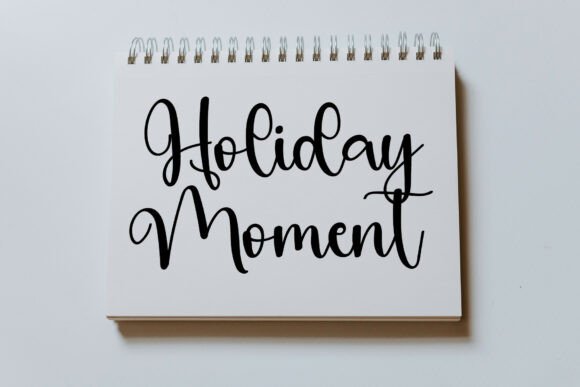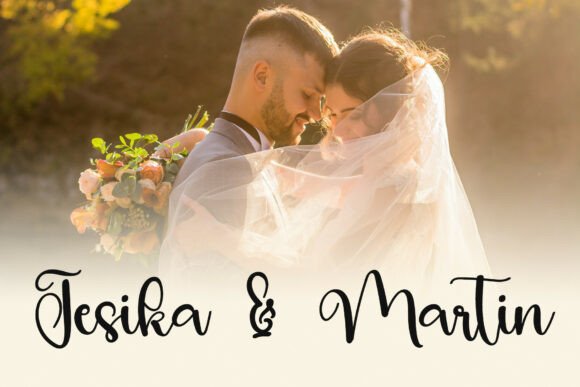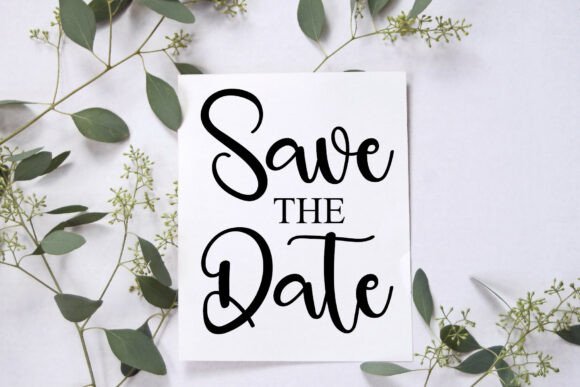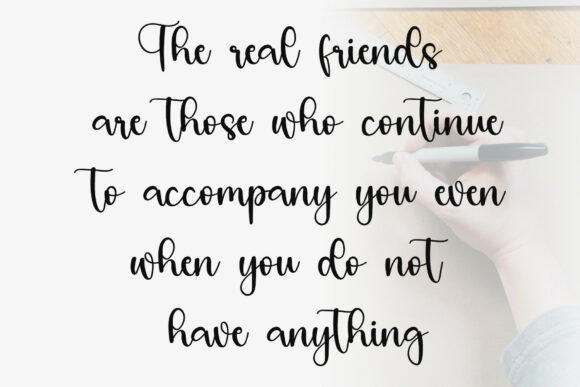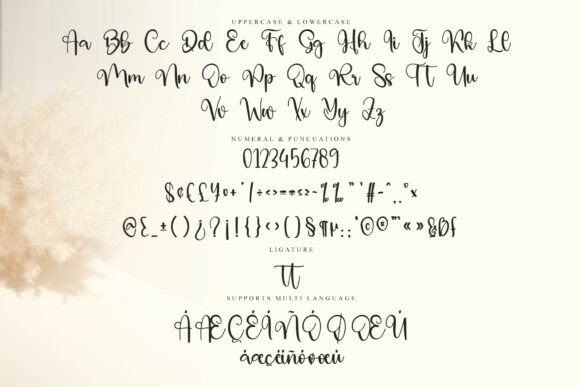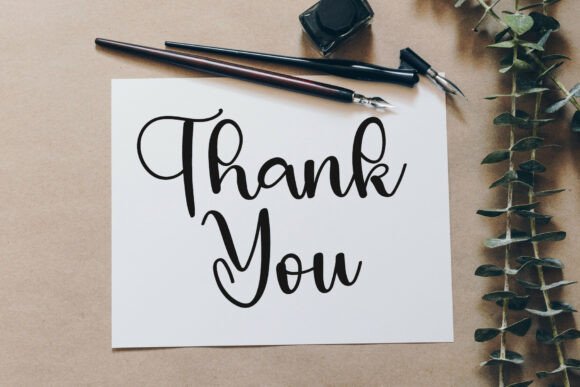
Discover the Brilliant Farmhouse Font: Elevate Your Designs with Elegance and Charisma
In the world of typography, few fonts manage to capture the essence of both elegance and boldness as effectively as the Brilliant Farmhouse font. This stunning typeface is designed to make a statement, boasting bold, fluid strokes and a dynamic script style that exudes confidence and charisma. Whether you’re a designer looking for the perfect font to elevate your project or a crafter seeking to add a touch of sophistication to your creations, Brilliant Farmhouse is sure to impress.
The Unique Charm of Brilliant Farmhouse
Brilliant Farmhouse is more than just a font; it’s an experience. Its bold, fluid strokes give it a sense of movement and energy, making it perfect for projects that require a dynamic and assertive touch. At the same time, its elegant and refined appearance ensures that it remains suitable for more sophisticated and high-end applications. This versatility makes Brilliant Farmhouse an excellent choice for a wide range of design projects, from logos and headlines to branding elements and more.
Blending Tradition with Modernity
One of the standout features of Brilliant Farmhouse is its ability to blend the beauty of handwritten calligraphy with a modern and assertive touch. This fusion of traditional and contemporary elements gives the font its unique charm and appeal. The handwritten calligraphy aspect adds a personal and human touch, making the font feel more approachable and engaging. Meanwhile, the modern and assertive elements ensure that it remains bold and impactful, capable of grabbing the viewer’s attention and holding it.
Brilliant Farmhouse is incredibly versatile, making it suitable for a wide range of design projects. Here are just a few examples of how you can use this stunning font:
- Logos: Create a striking and memorable logo that captures the essence of your brand with Brilliant Farmhouse.
- Headlines: Add a touch of elegance and sophistication to your headlines, making them stand out and grab attention.
- Branding Elements: Use Brilliant Farmhouse to create eye-catching branding elements, such as business cards, letterheads, and more.
- Signage: Make a bold statement with your signage, whether it’s for a storefront, event, or exhibition.
- Packaging: Add a touch of luxury and sophistication to your product packaging with Brilliant Farmhouse.
Why Choose Brilliant Farmhouse?
With so many fonts available, why choose Brilliant Farmhouse? Here are just a few reasons why this font stands out from the crowd:
- Unique Style: Brilliant Farmhouse boasts a unique and distinctive style that’s sure to set your designs apart.
- Versatility: This font is incredibly versatile, making it suitable for a wide range of design projects and applications.
- Elegance and Charisma: Brilliant Farmhouse exudes elegance and charisma, making it perfect for projects that require a touch of sophistication.
- Easy to Read: Despite its bold and dynamic appearance, Brilliant Farmhouse is easy to read, making it perfect for both digital and print applications.
In conclusion, Brilliant Farmhouse is a font that truly has it all. Its bold, fluid strokes and dynamic script style make it perfect for designers and crafters looking to add a touch of elegance and charisma to their projects. With its unique blend of traditional and modern elements, Brilliant Farmhouse is sure to make a statement and leave a lasting impression. Whether you’re creating a logo, headline, or branding element, this stunning font is sure to deliver with confidence and flair.